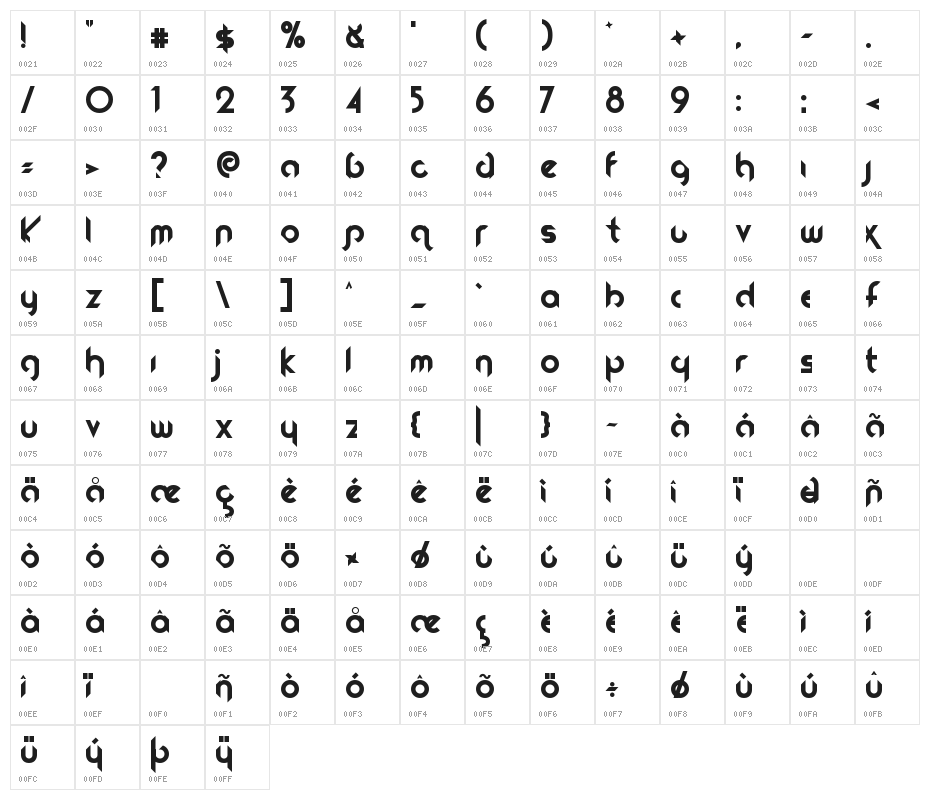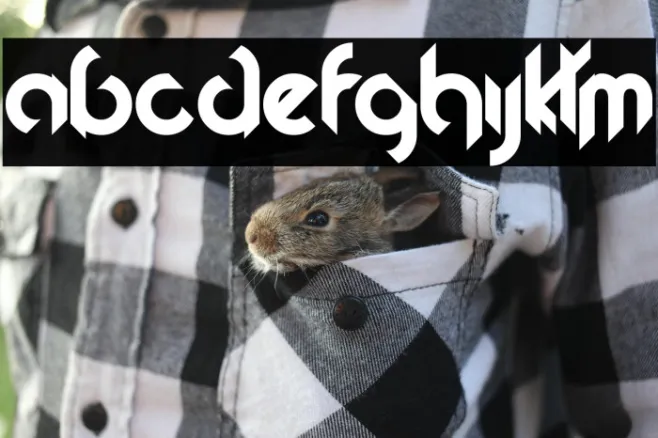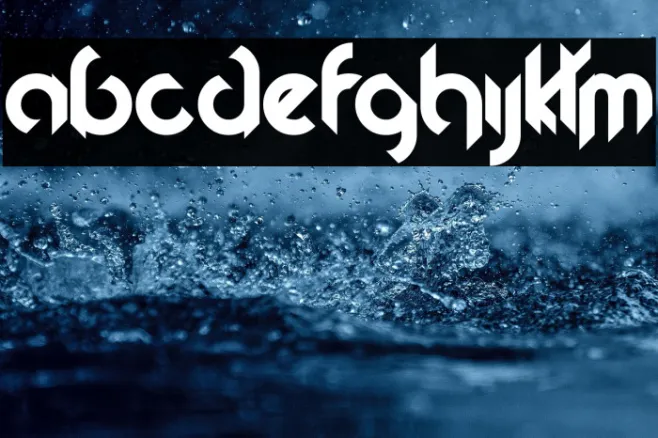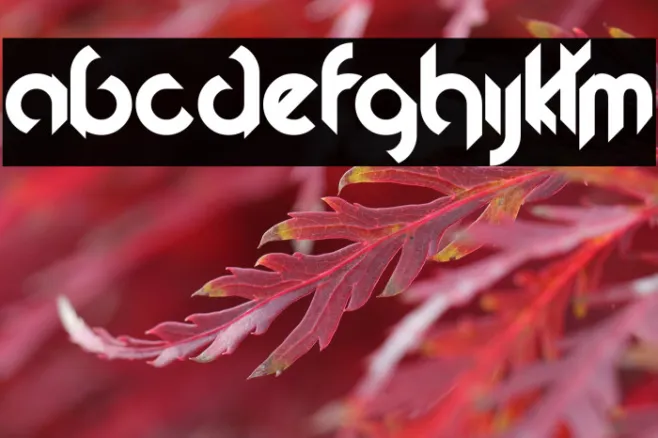
Fireflies Font
Fireflies Description
This font features a bold and geometric style with sharp angles and clean lines, creating a modern and futuristic appearance. The characters are designed with a consistent stroke width, giving them a uniform and cohesive look. The uppercase and lowercase letters share similar design elements, maintaining a strong visual identity across the alphabet. The numerals and special characters are crafted to match the overall aesthetic, ensuring a seamless integration in various design contexts. The font's distinct style makes it suitable for projects that require a contemporary and edgy feel.
| Proposed Projects | Ideal for branding, posters, album covers, and digital media that aim for a futuristic or edgy look. |